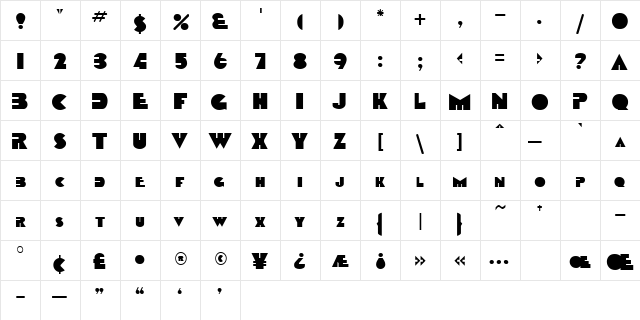
Sharktooth Regular Free Font
Sharktooth Regular
Sharktooth Family
Design Context for Sharktooth
Sharktooth is a composed and adaptable typeface that performs quietly and consistently across a wide range of design contexts.